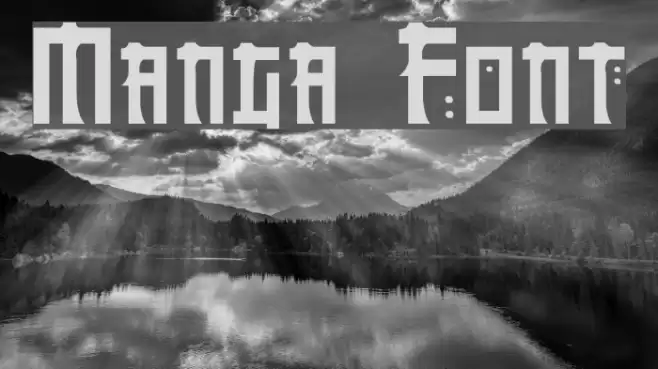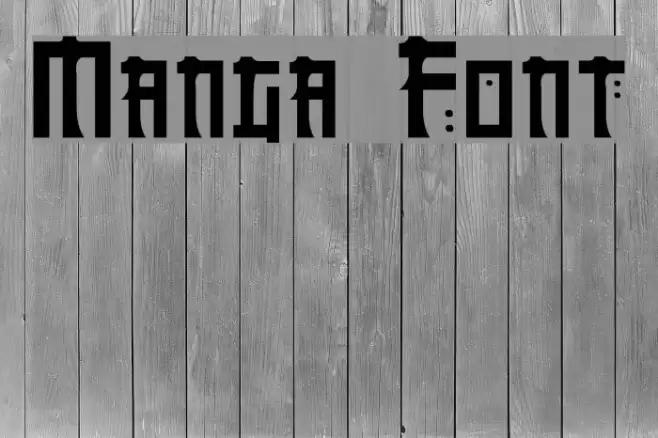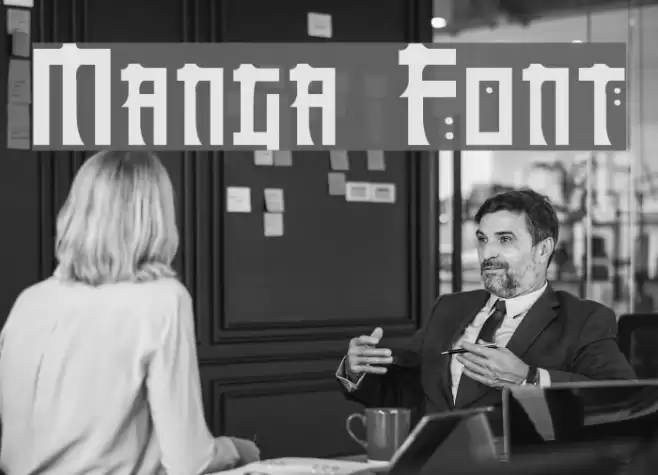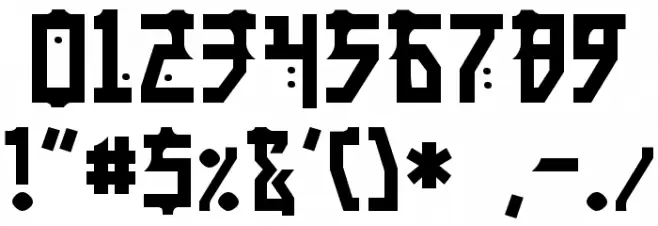
Manga Font
Manga Description
This font features a bold and geometric style with a distinct, futuristic appearance. The characters are constructed with sharp angles and straight lines, giving them a mechanical and industrial feel. Each letter and number is uniquely designed with consistent thickness, creating a uniform look across the typeface. The inclusion of small, circular cutouts within the characters adds an intriguing visual element, enhancing its modern and edgy aesthetic. This font is highly legible and impactful, making it suitable for various design applications where a strong visual presence is desired.
A bold, geometric font with a futuristic and industrial style from Uncategorized fonts.
- Proposed Projects: Ideal for sci-fi themed designs, technology branding, video game titles, and posters.
- Overall Style: Futuristic